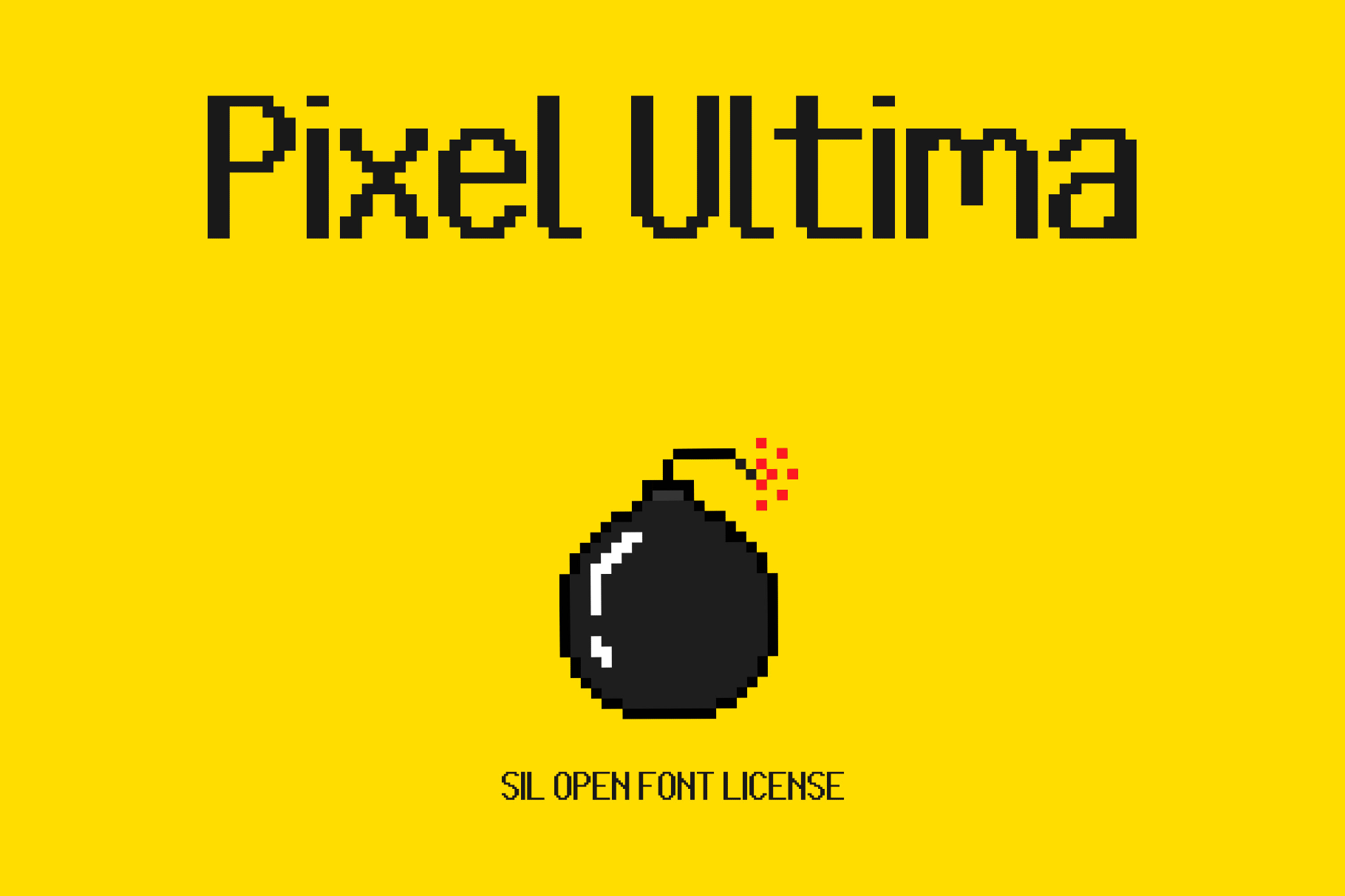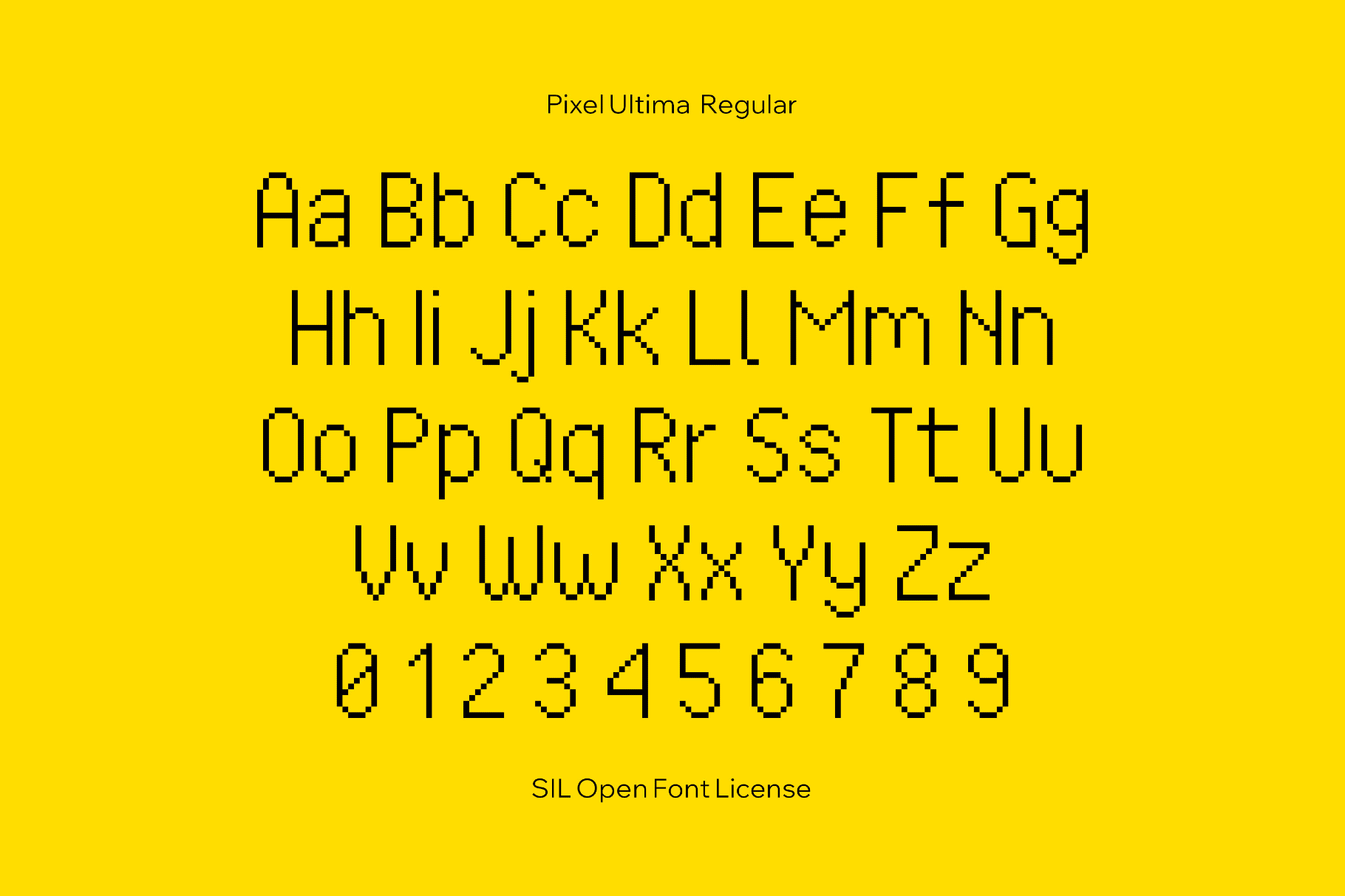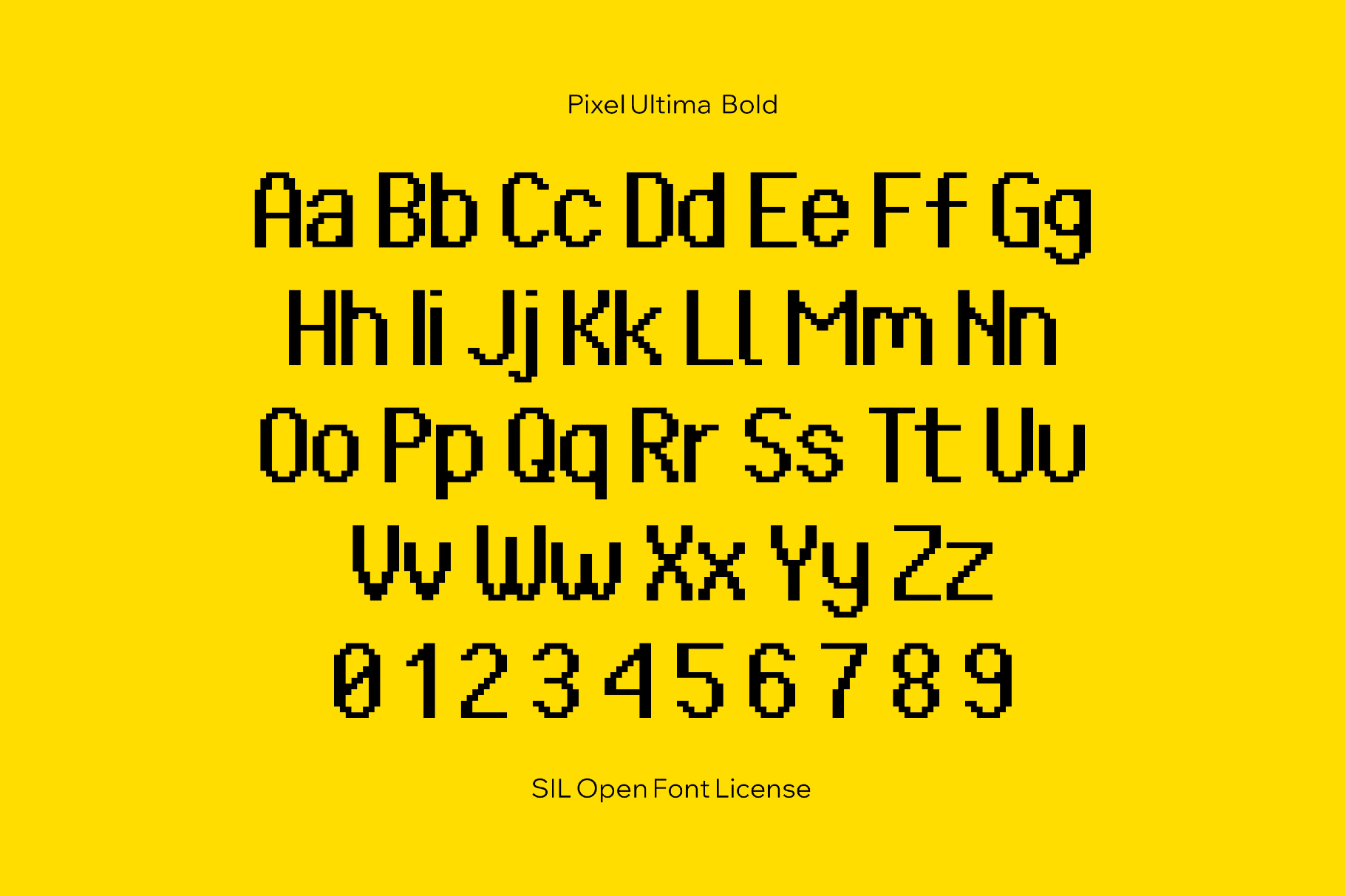
Pixel Ultima
Pixel Ultima is a large typeface that aligns clean, blocky strokes into a clear, screen-ready grid. It is designed to stay sharp at 16 px and bigger sizes, so you can play as you like. Use this family for game interfaces, retro desktop and OS mockups, launcher and menu screens, streaming overlays, magazines, emulator, fan projects, scoreboard or stat panels, and social graphics.
• Two styles: Regular and Bold.
• Uppercase and lowercase letters, numbers, punctuation, symbols, international characters, extra symbols, and some dingbat-style glyphs for icons and decorative marks.
• Multilingual coverage across Latin and standard Cyrillic scripts.